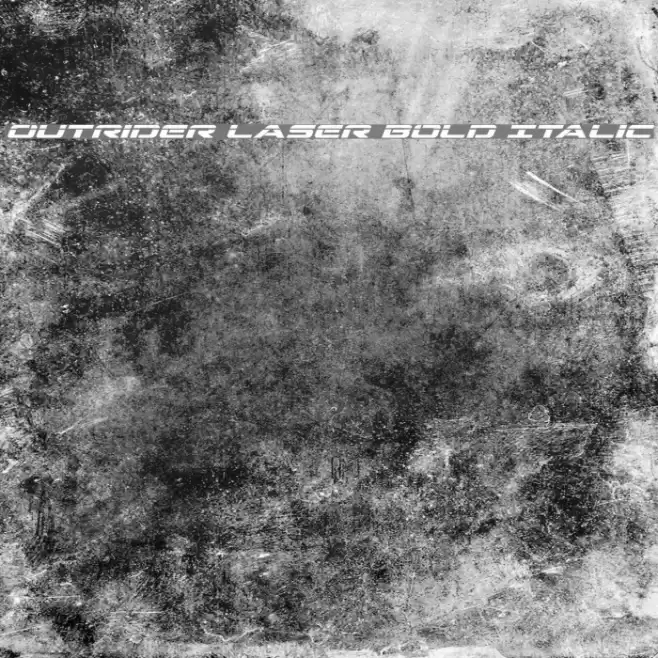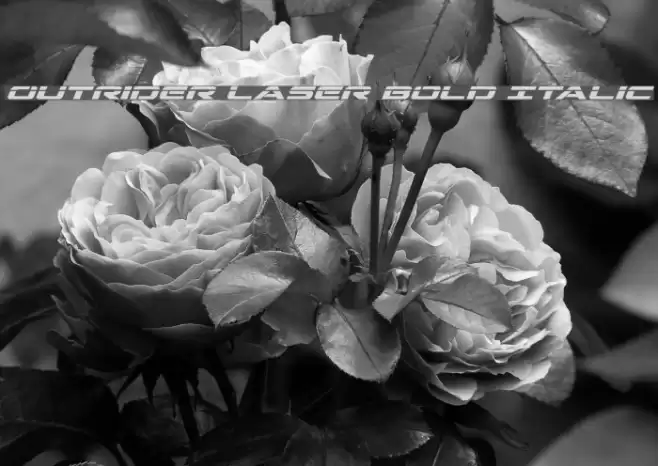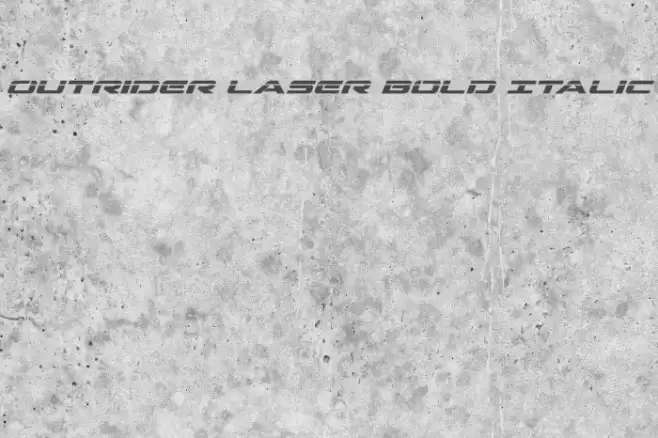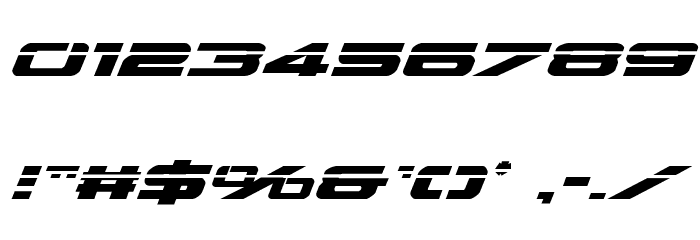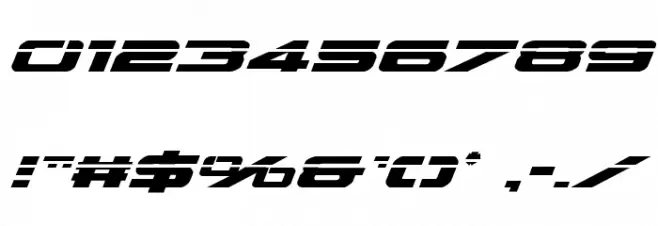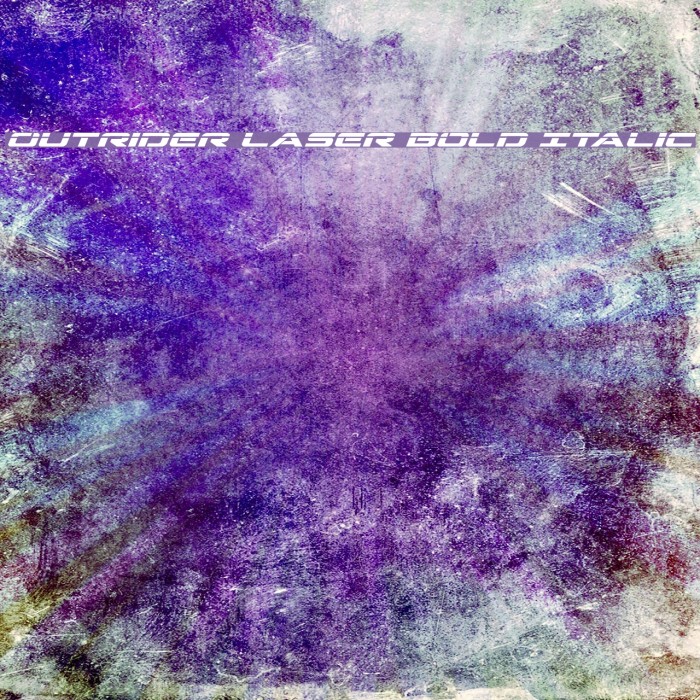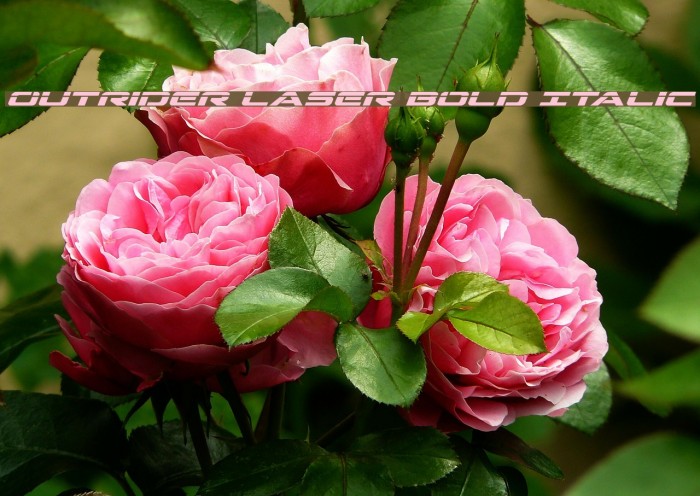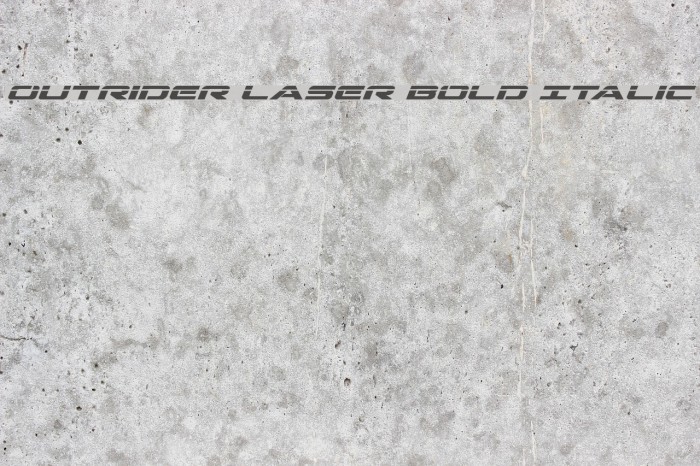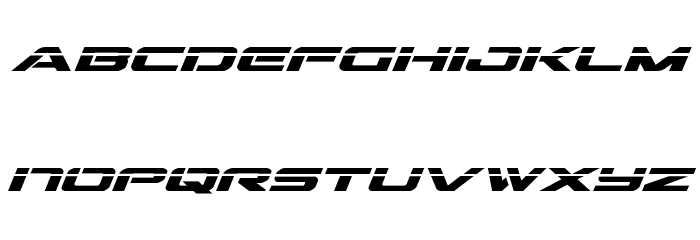
Outrider Laser Bold Italic Font
Outrider Laser Bold Italic Description
This font features a futuristic and dynamic design, characterized by its bold and italicized form. The letters are sharply angled, giving a sense of motion and speed. The strokes are thick and consistent, with a slight slant that enhances its modern and edgy appearance. The characters are tightly spaced, contributing to a compact and cohesive look. This style is ideal for projects that require a strong and impactful visual presence, such as technology-related branding or sci-fi themed designs.
A bold, italicized font with a futuristic and dynamic style from Uncategorized fonts.
- Proposed Projects: Ideal for technology branding, sci-fi themes, video game titles, and modern advertising.
- Character Spacing: Tight
- Overall Style: Futuristic